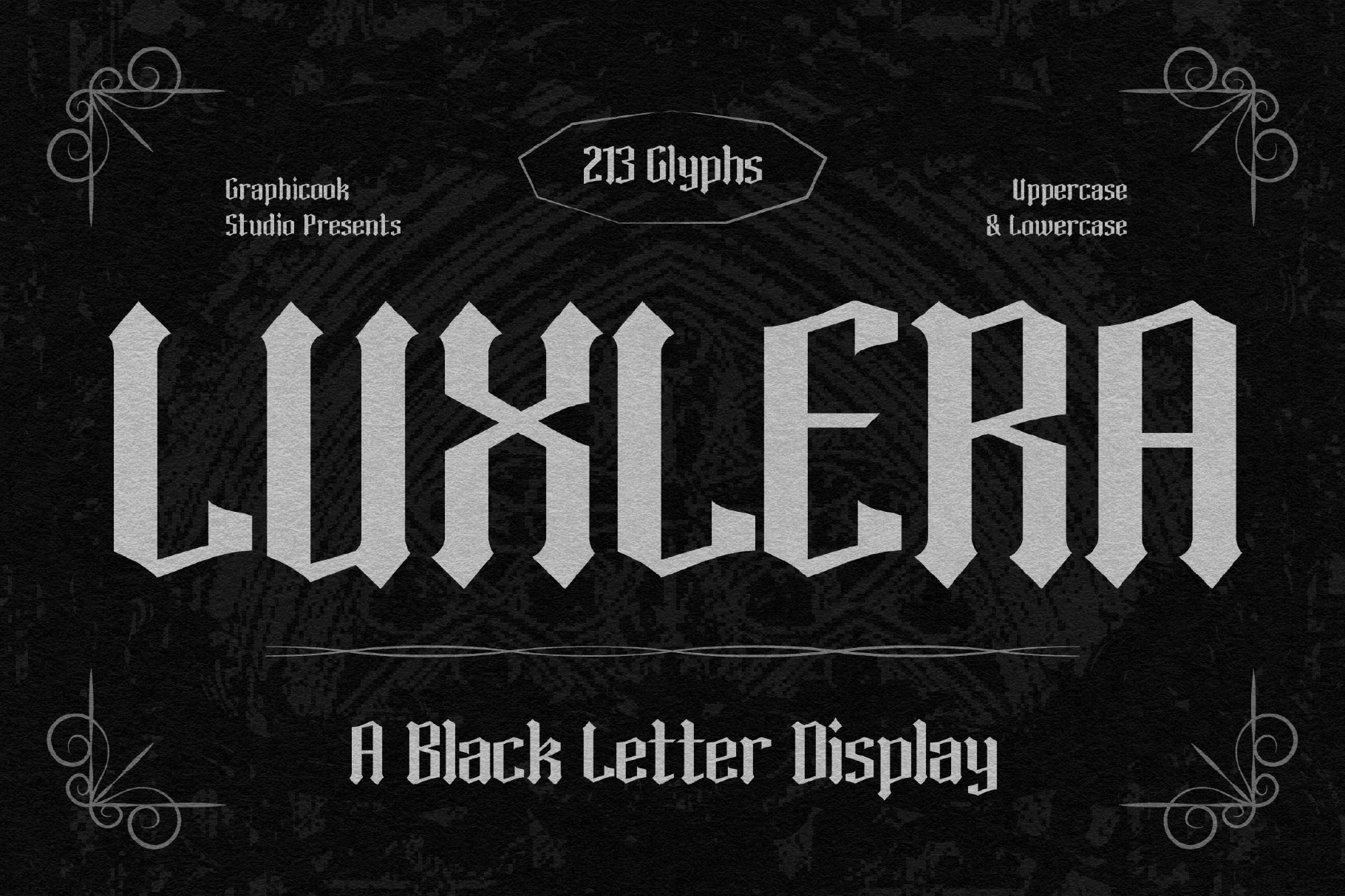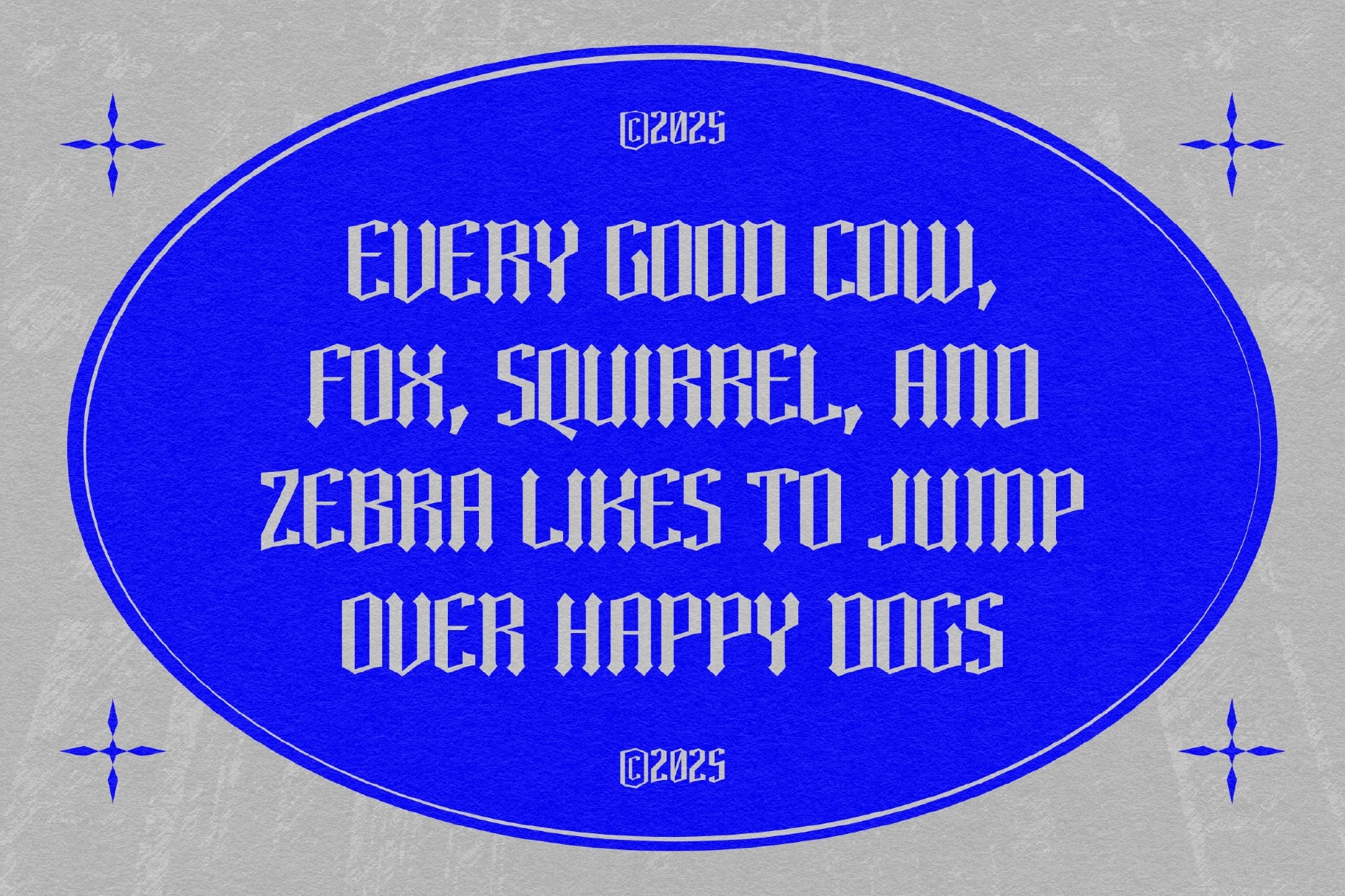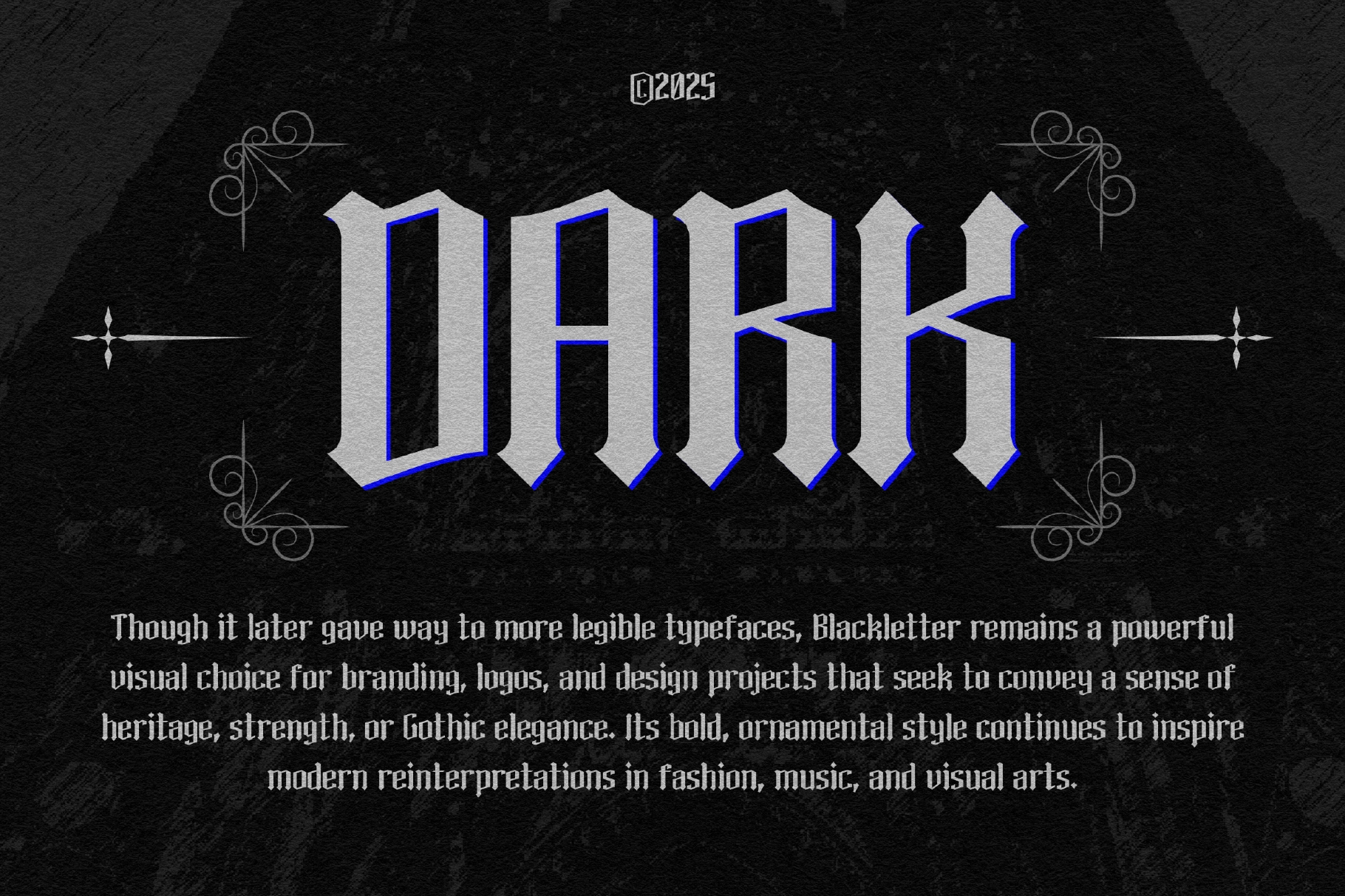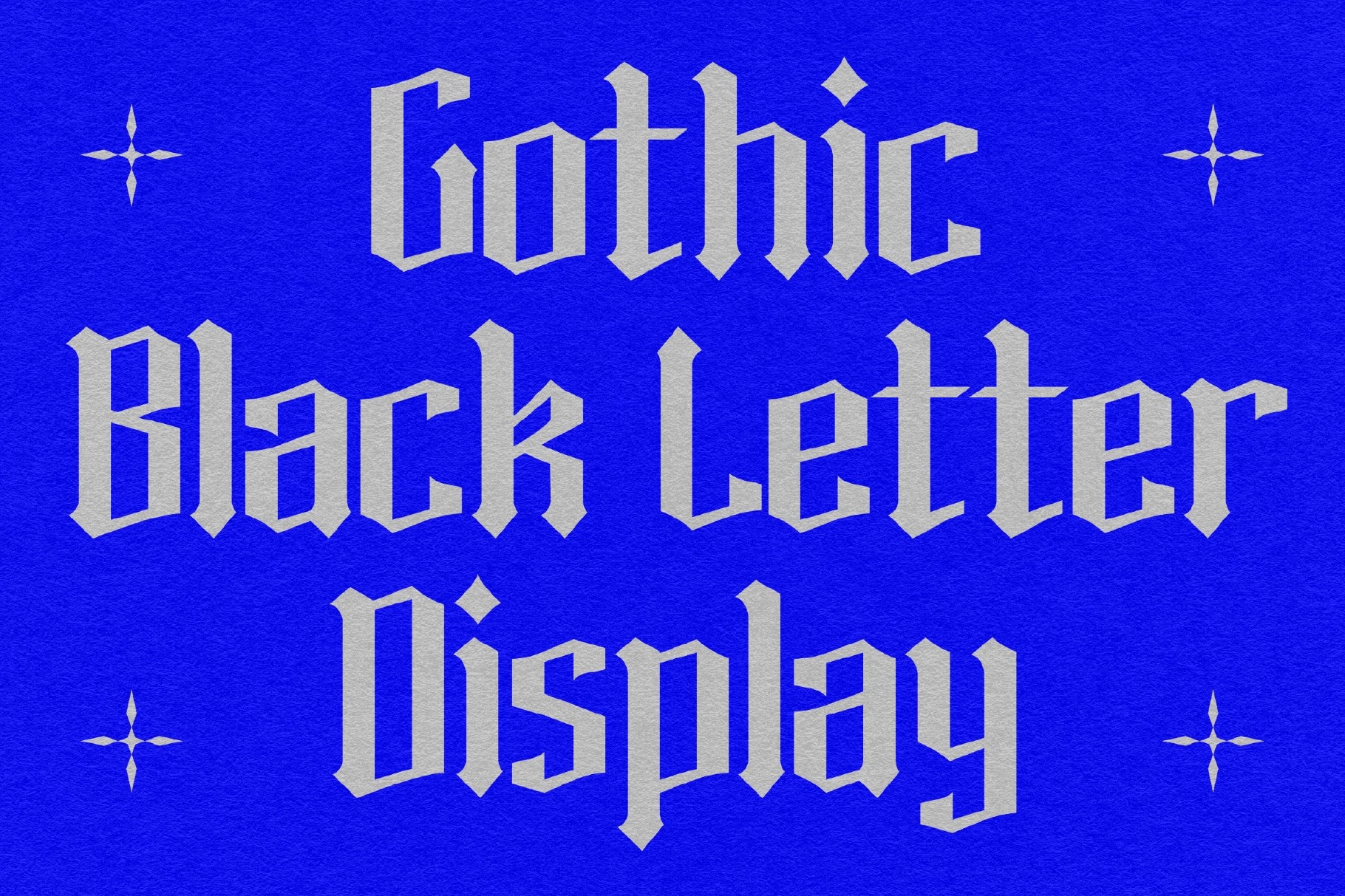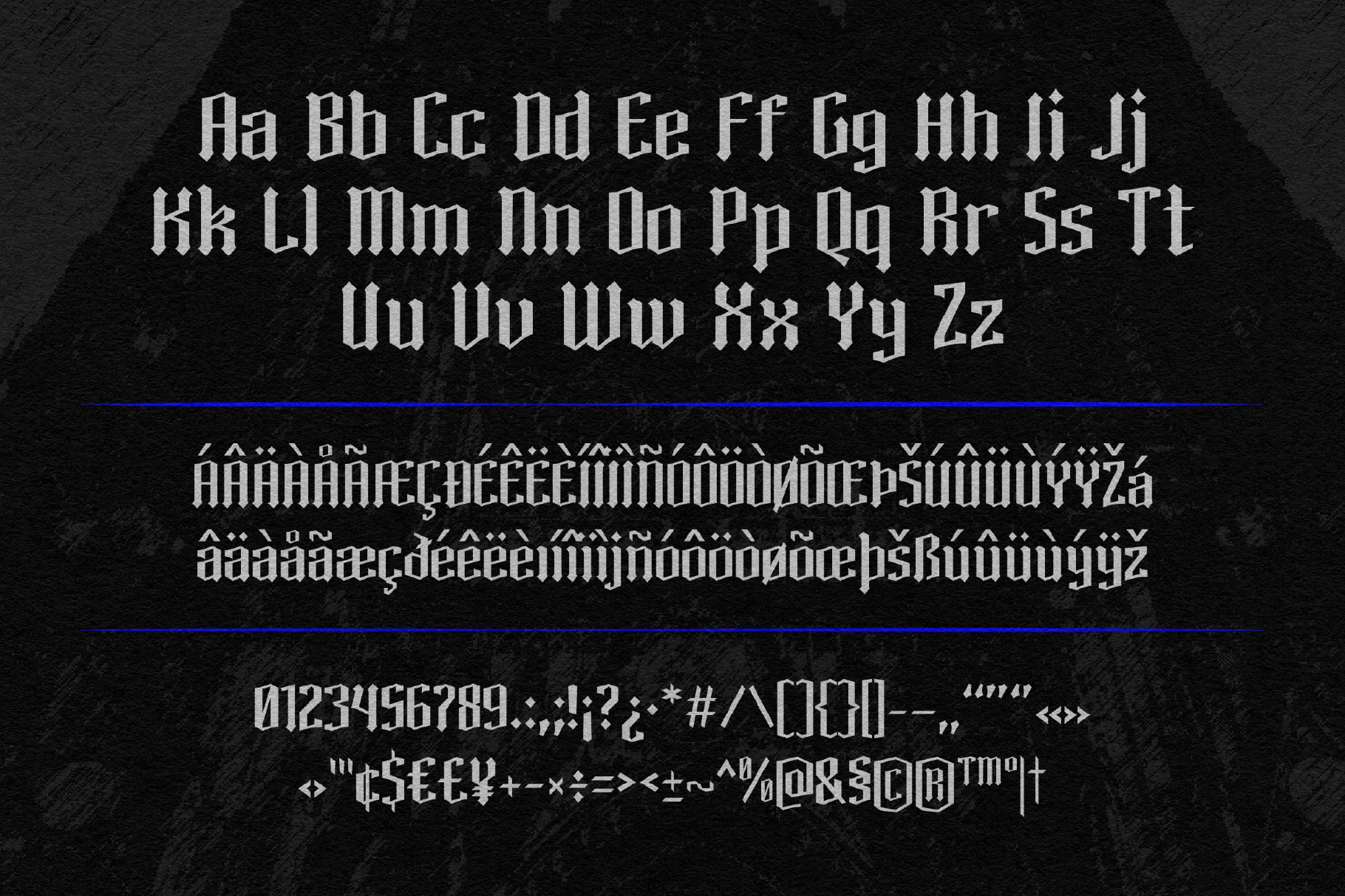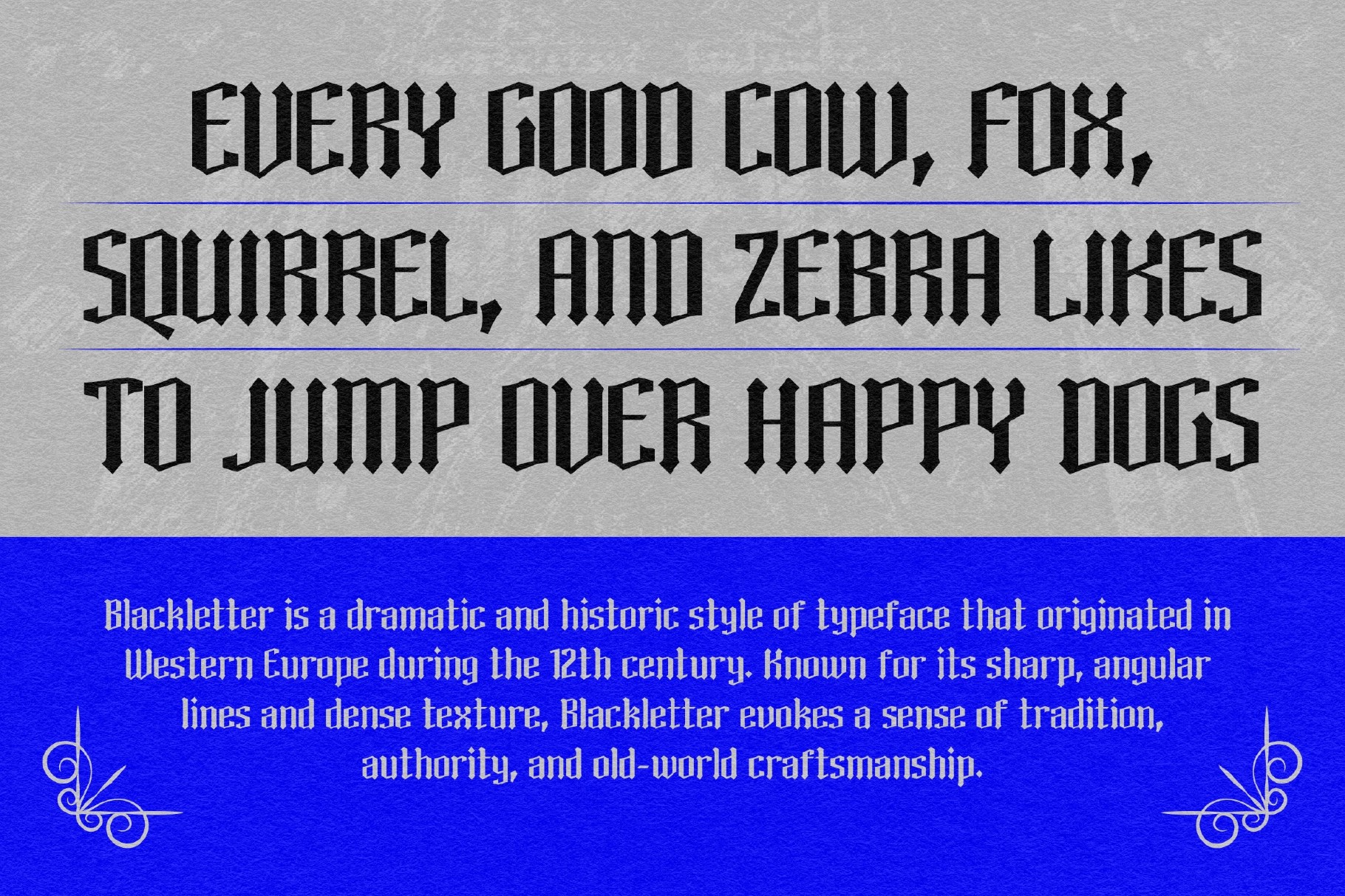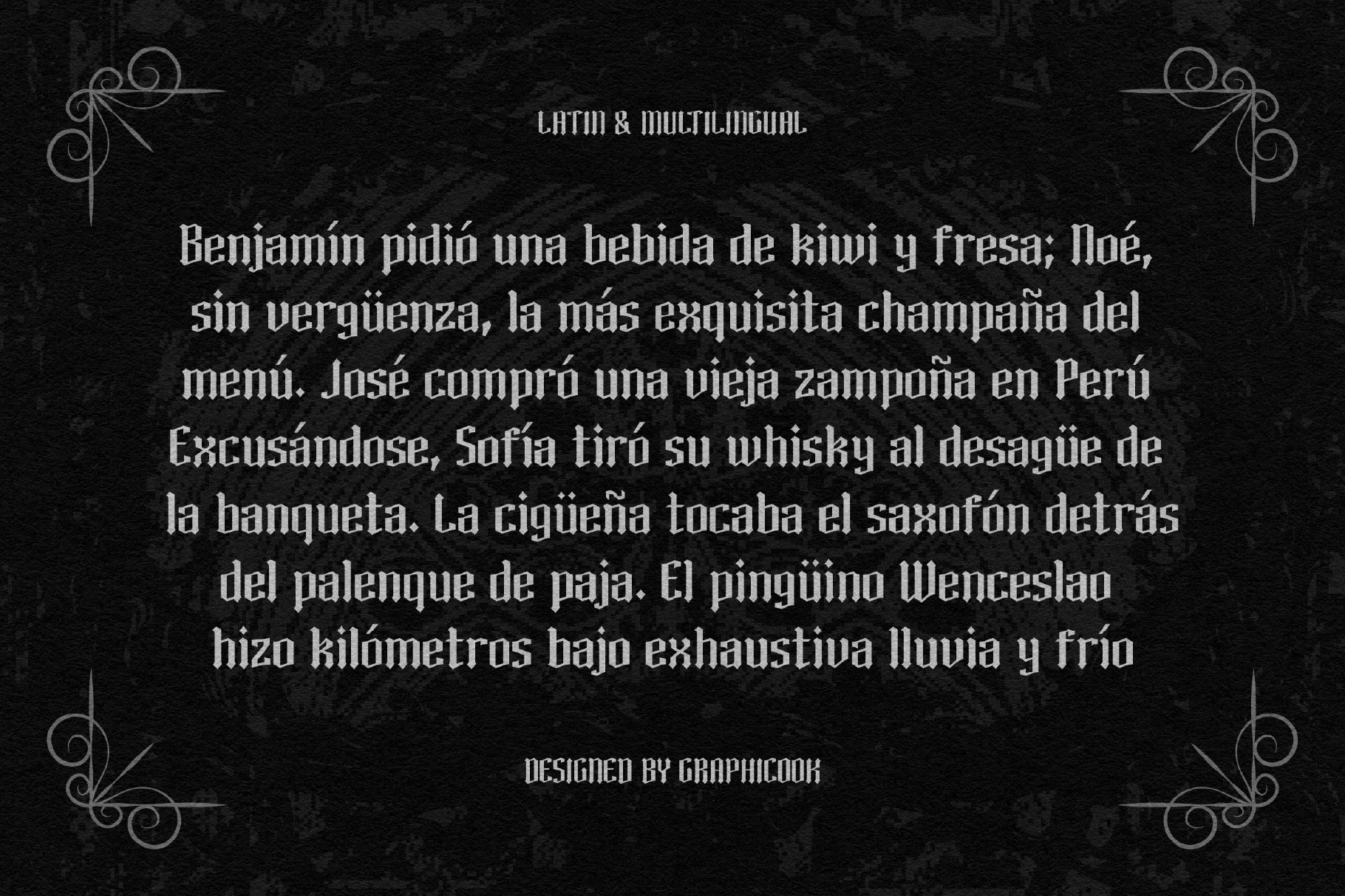
Luxlera
Luxlera is a blackletter typeface inspired by classic Old English and gothic calligraphy, featuring sharp, dramatic letterforms rich in historical character. Perfect for metal, rock, and gothic band logos, as well as horror or mystery movie posters.